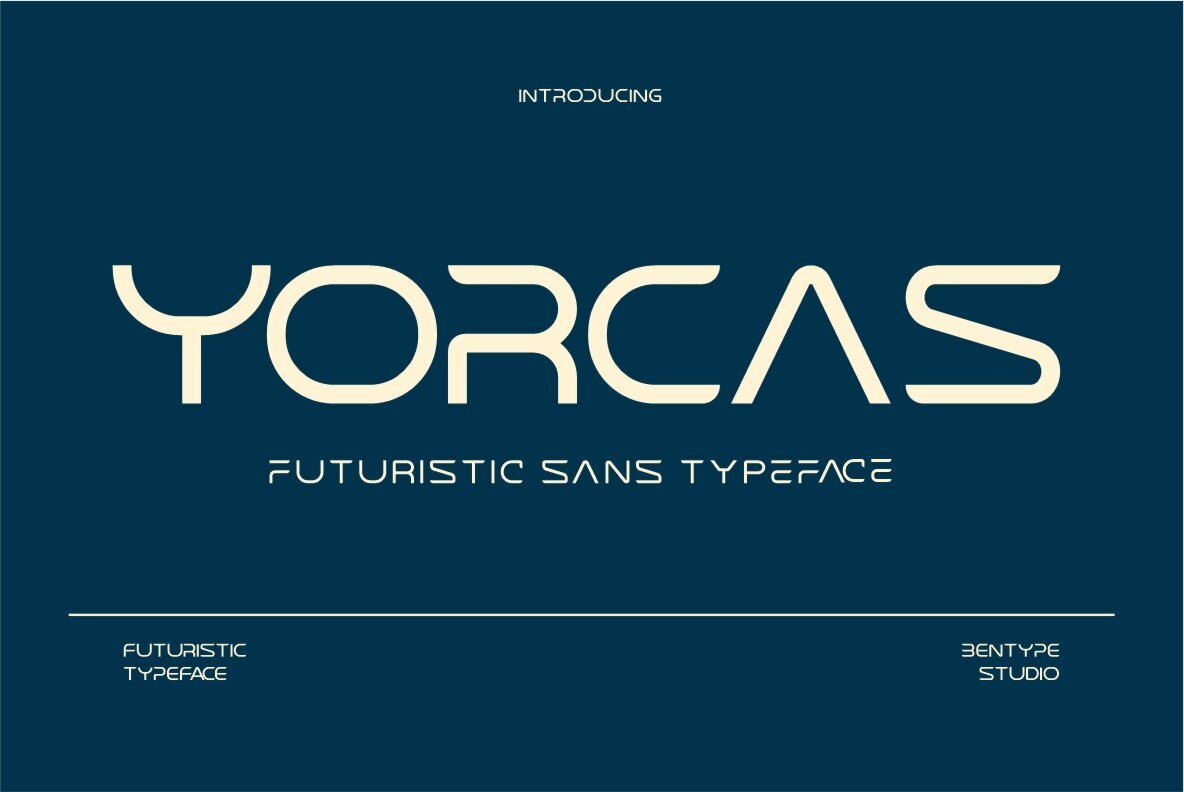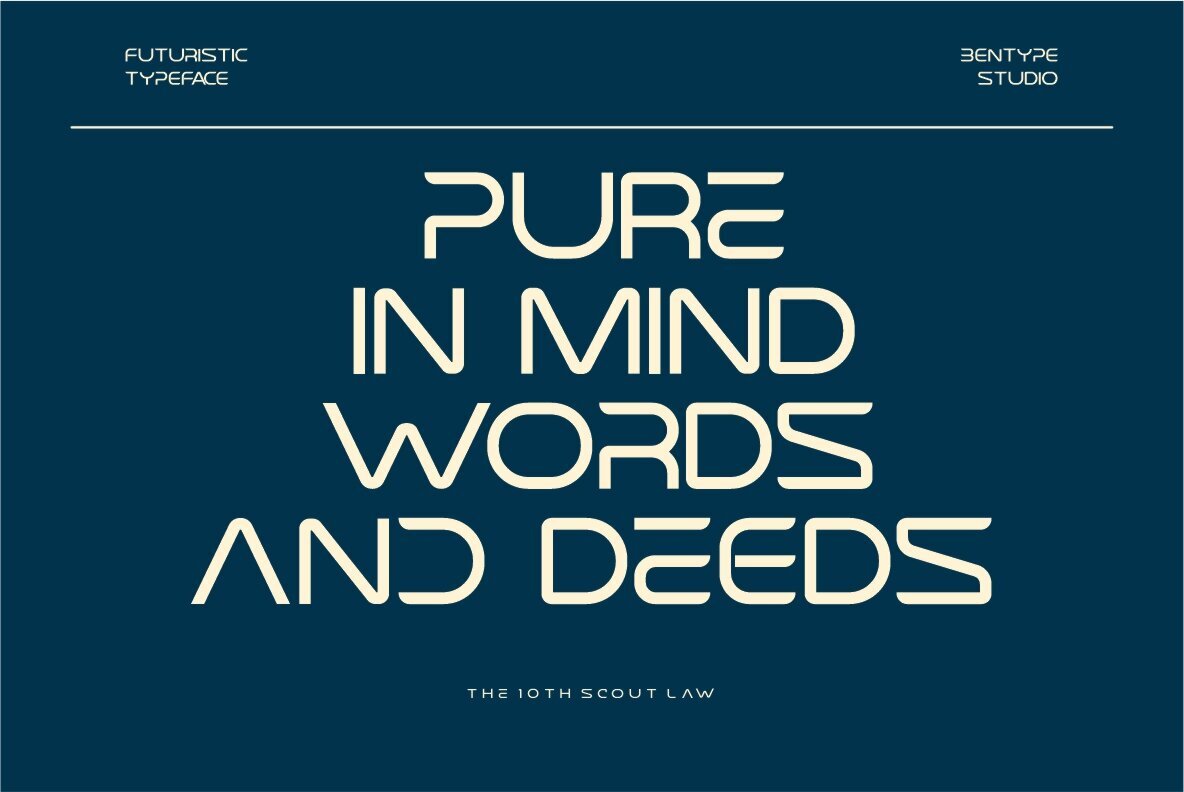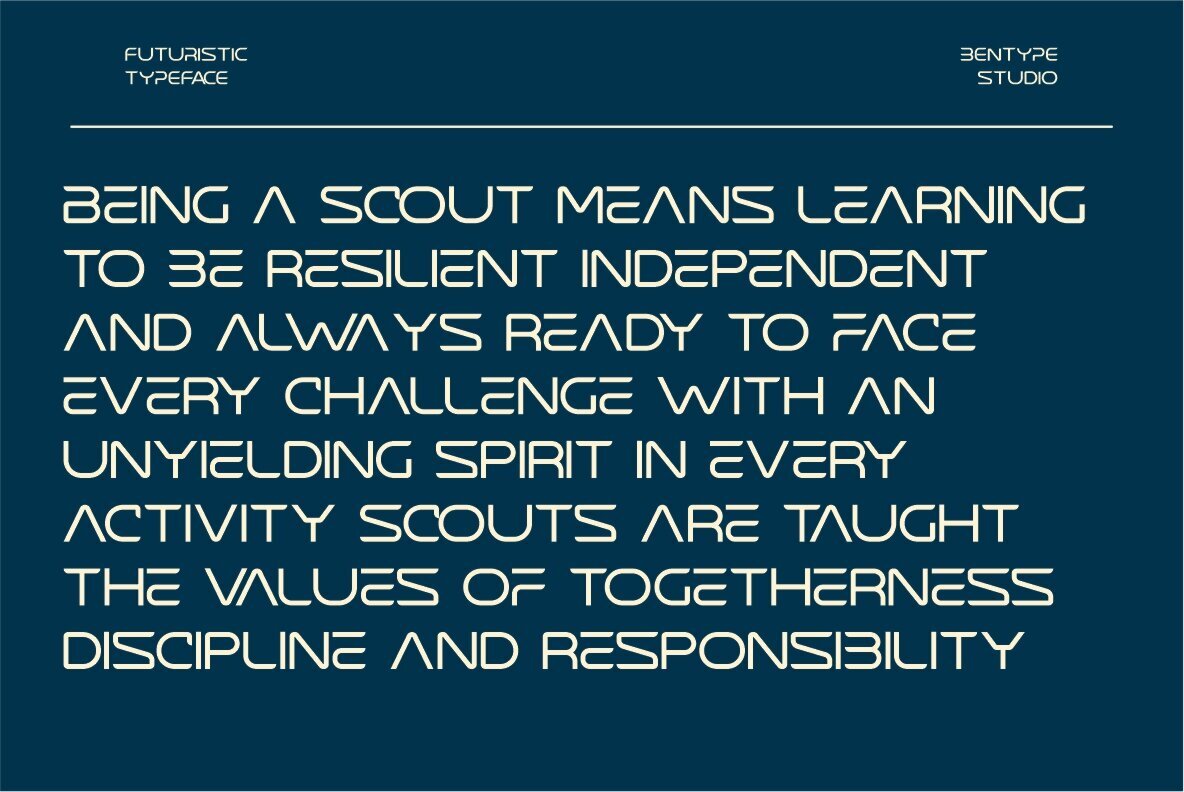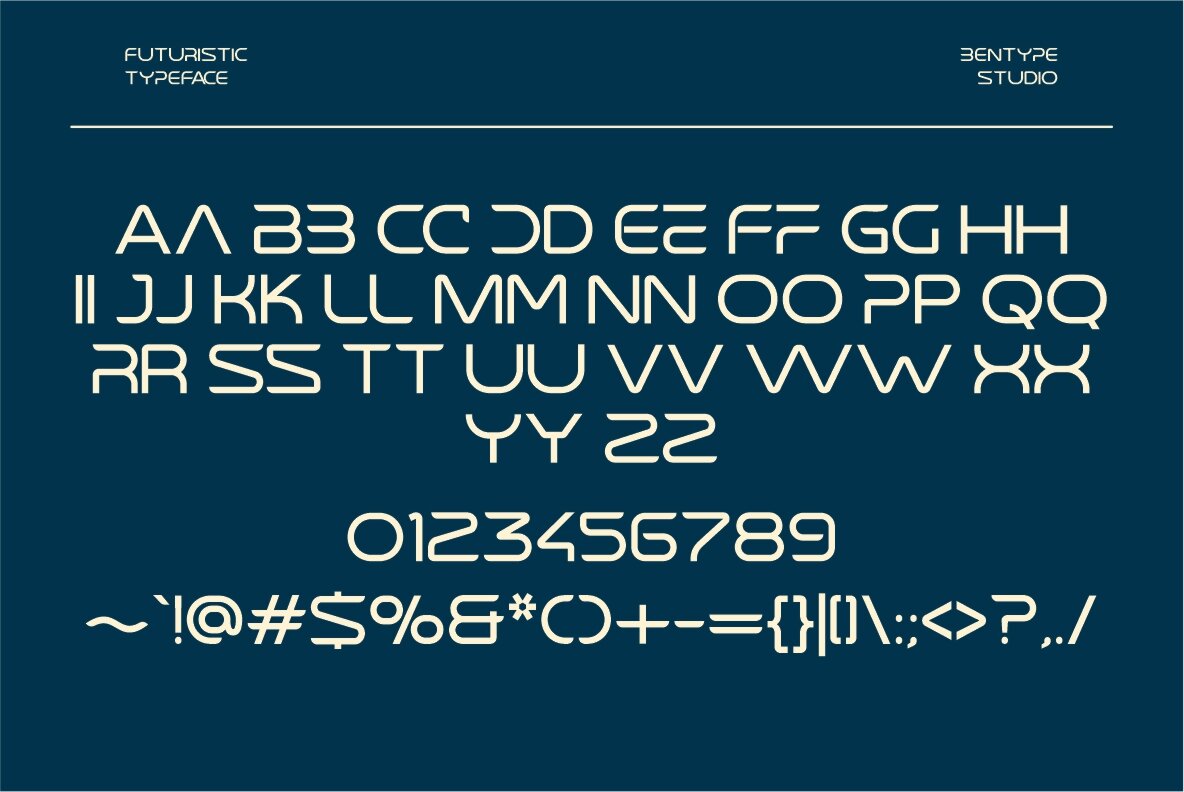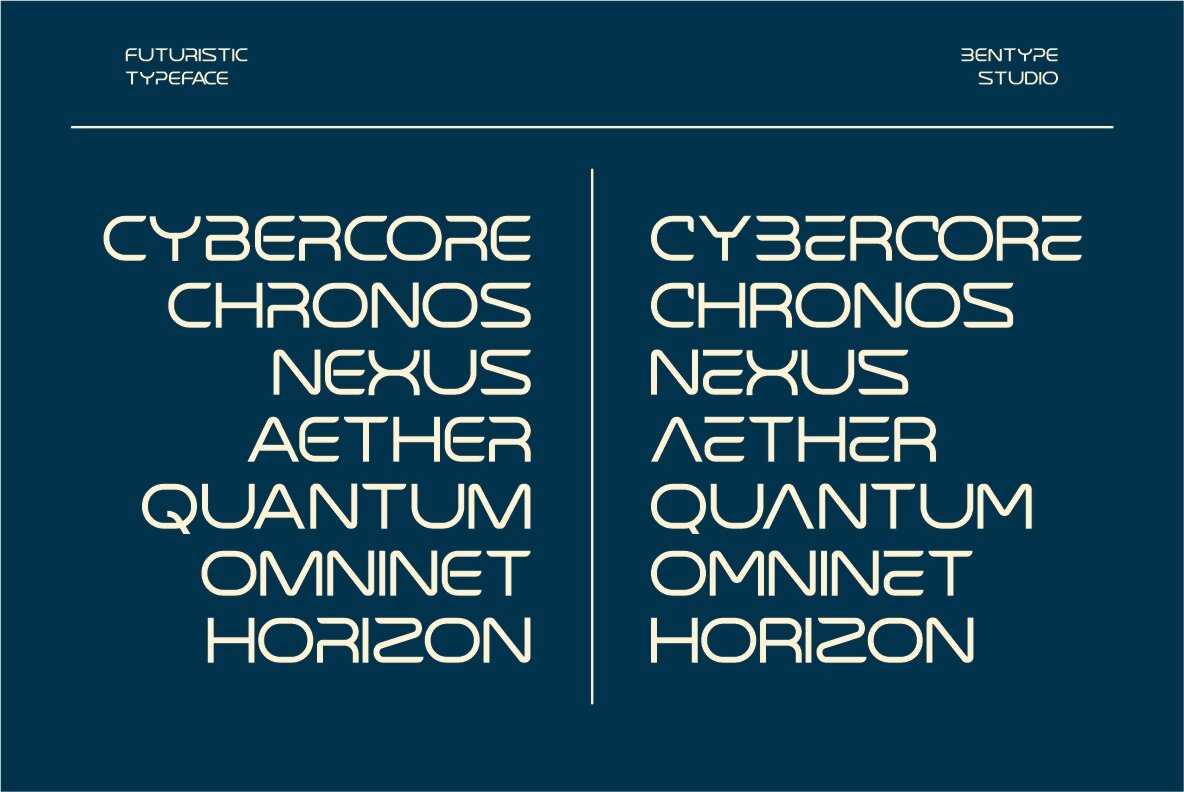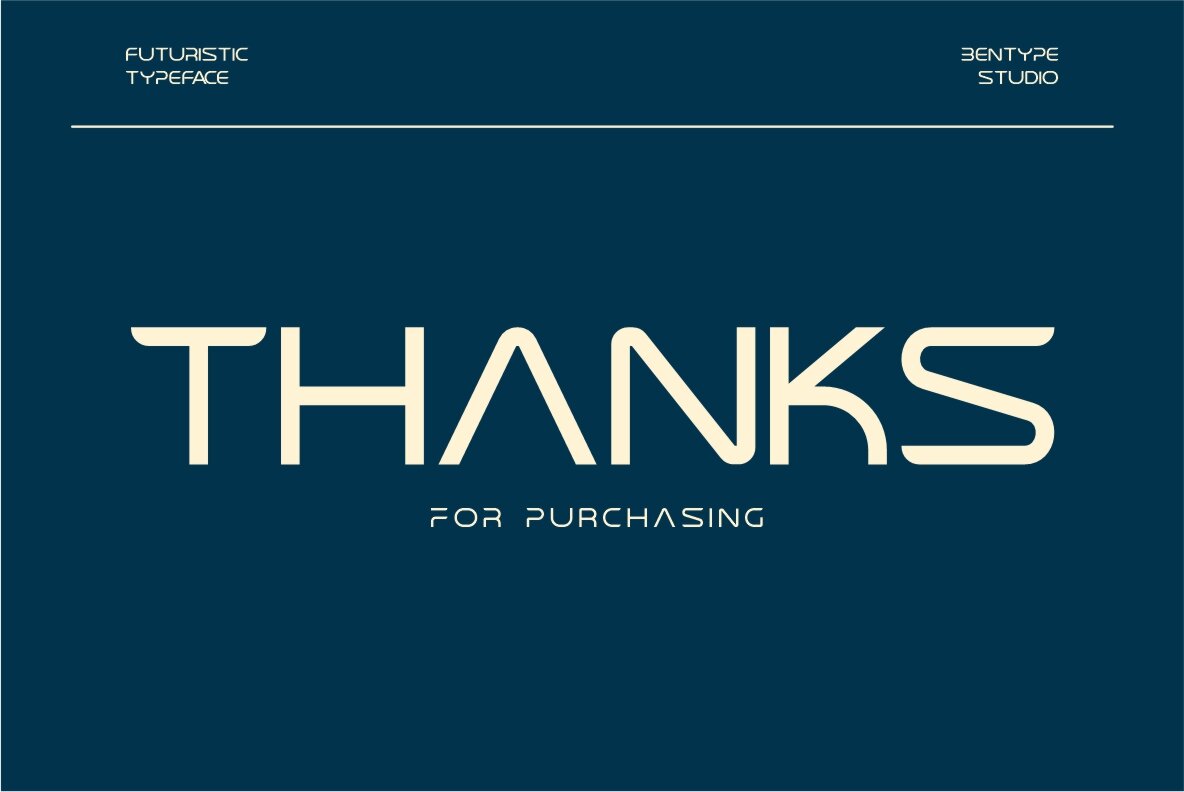
Yorcas Font
Yorcas
The Yorcas font embodies a sleek, modern aesthetic tailored for cutting-edge projects. Its all-caps style and high-tech theme are ideal for sectors like robotics, digital innovation, and virtual reality. Whether envisioning futuristic landscapes or crafting distinct visual identities, Yorcas offers a versatile solution that speaks to the future.Yorcas: The Future of Typographic Design